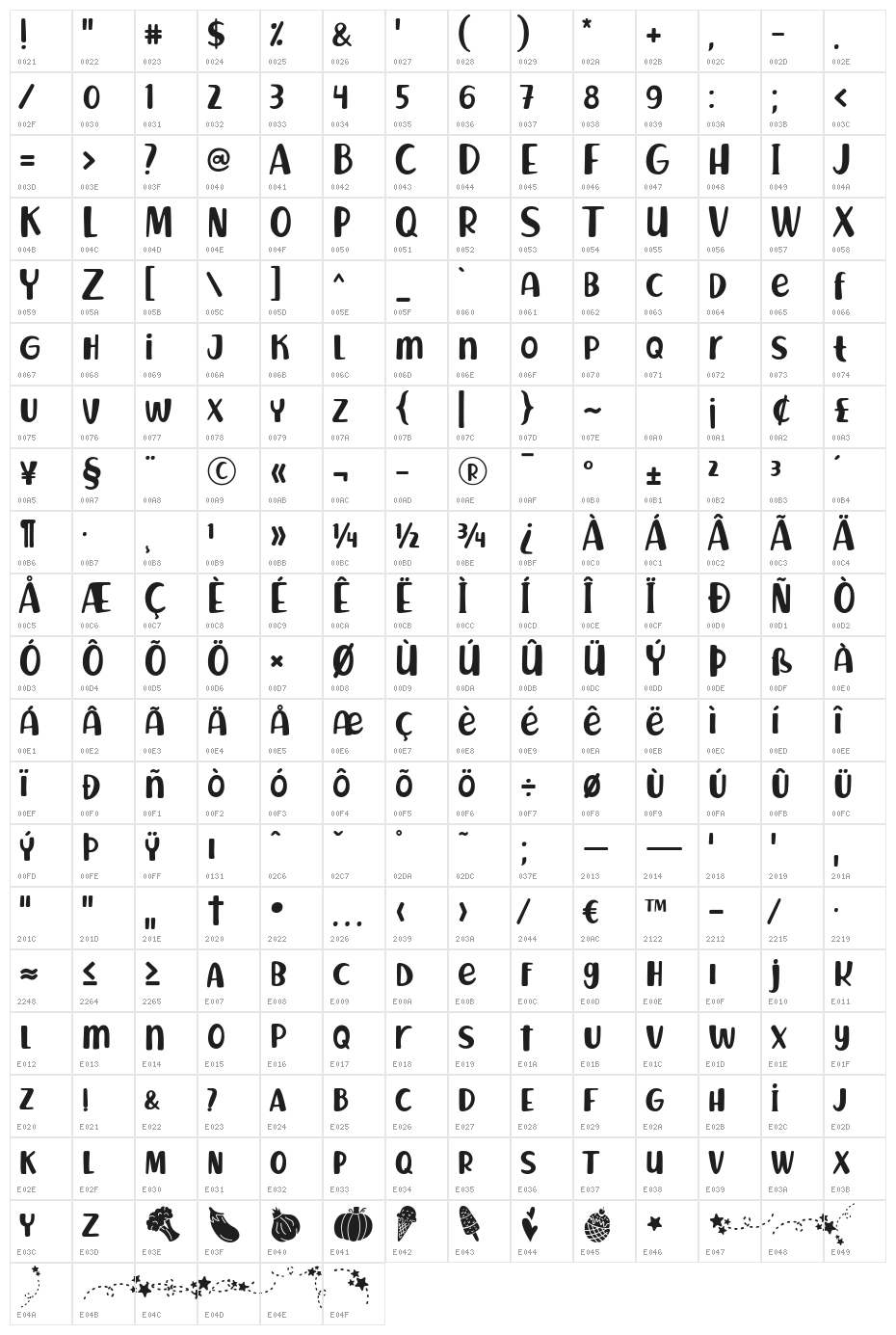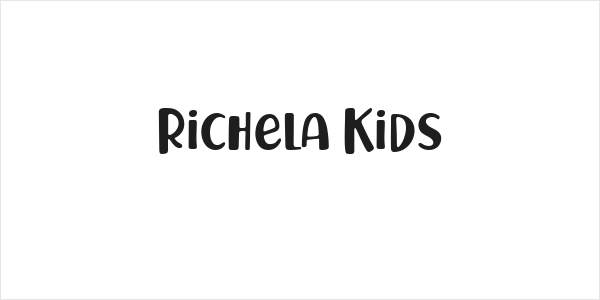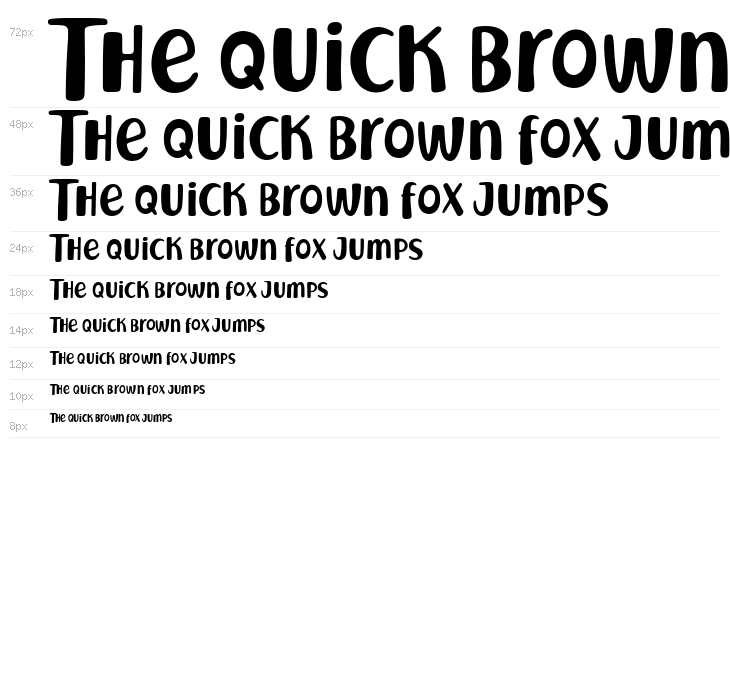
Richela Kids Font
Richela Kids Description
This playful and whimsical font features rounded, bold characters that exude a sense of fun and creativity. The letters have a slightly irregular shape, giving them a hand-drawn appearance that is both charming and approachable. The uppercase and lowercase letters maintain a consistent style, with smooth curves and a friendly demeanor. Numbers and special characters are designed to match the playful aesthetic, making this font suitable for a variety of creative projects. Its bold weight and medium contrast ensure readability while maintaining a unique and engaging look.
| Proposed Projects | Ideal for children's books, playful branding, educational materials, and creative posters. |